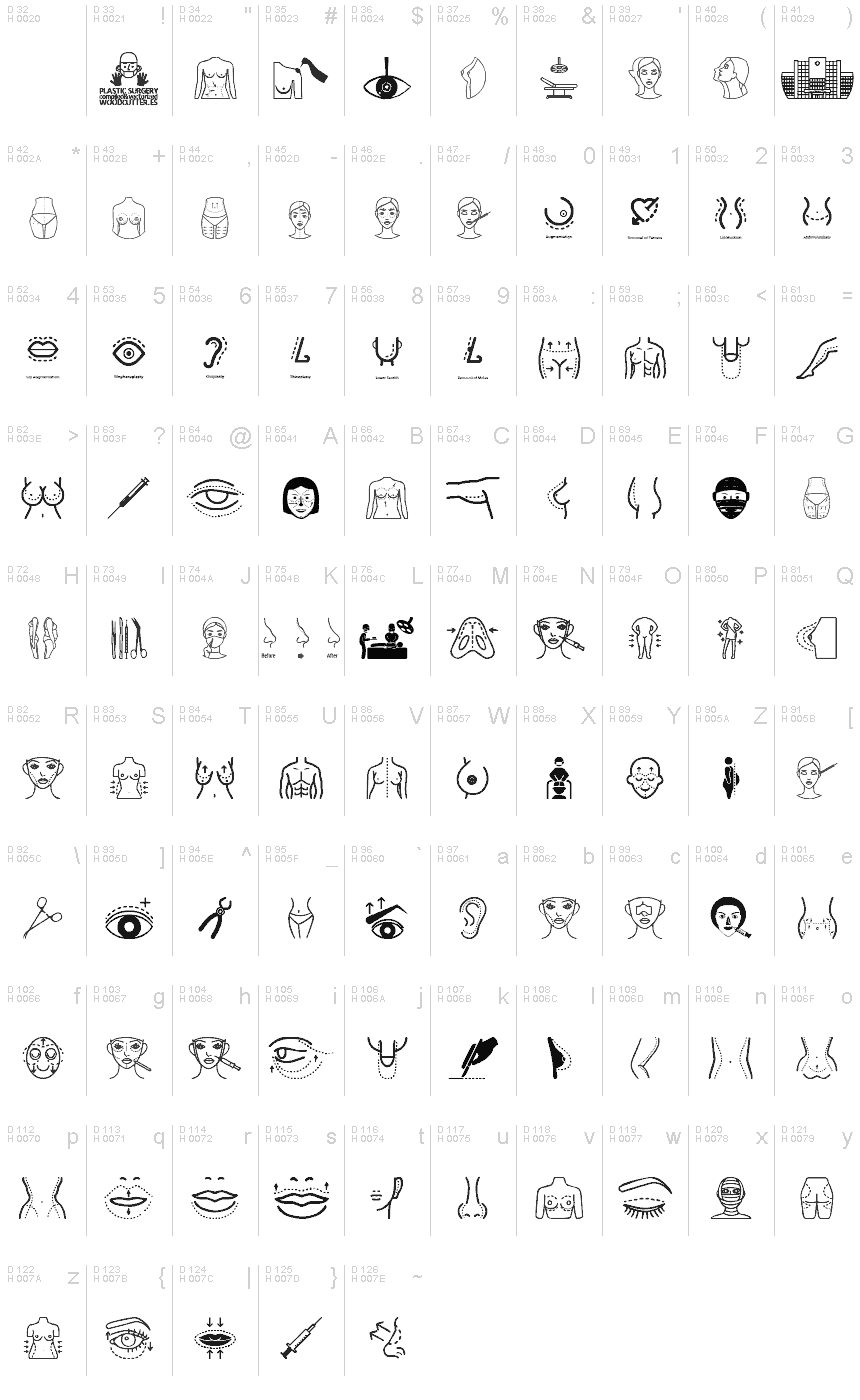
Plastic Surgery
Plastic Surgery is a captivating dingbats font designed by Woodcutter Manero. Its playful, whimsical icons evoke a sense of medical curiosity, with stylized symbols that range from surgical tools to anatomical sketches. This font's distinct aesthetic lends itself well to a variety of applications, from medical branding and packaging to editorial illustration and quirky typographic treatments. The diverse collection of symbols provides designers with a unique visual language to convey concepts related to health, medicine, and the human body in a visually engaging manner.
The font's quirky, hand-drawn appearance adds a touch of personality and charm, making it a compelling choice for projects seeking to strike a balance between the clinical and the creative. Plastic Surgery's versatility allows it to seamlessly integrate into various design contexts, from editorial layouts to promotional materials, adding a distinctive flair to any project.